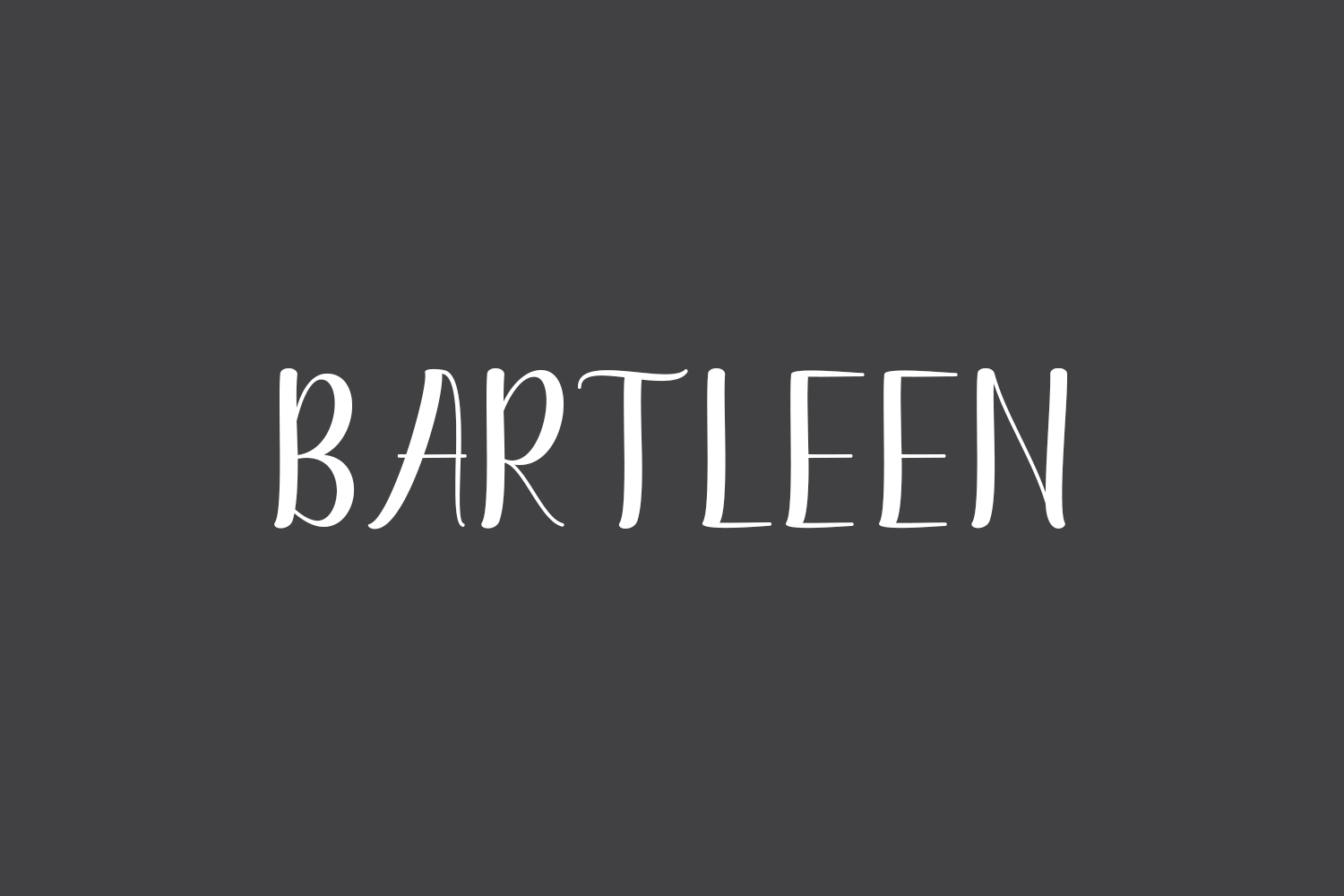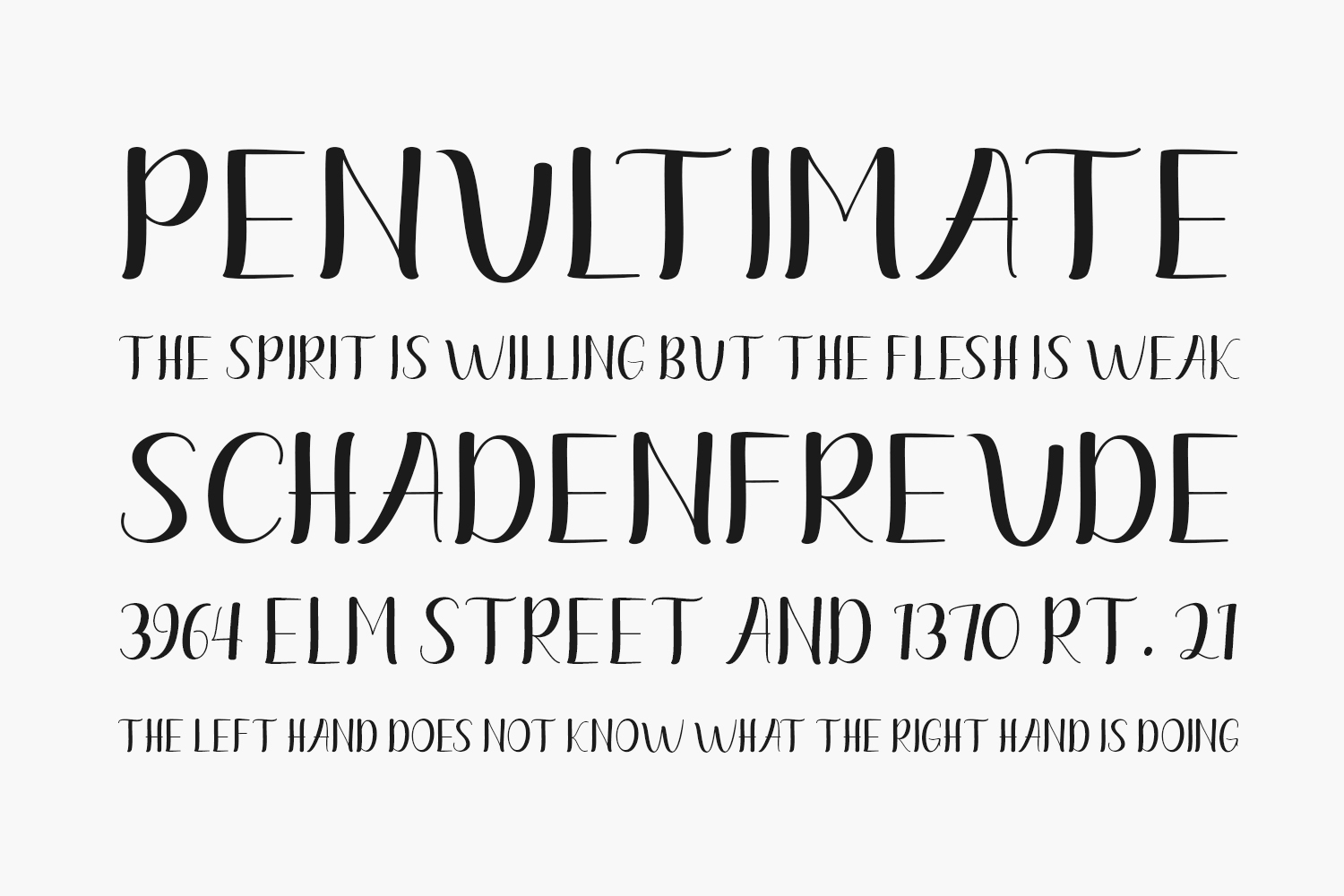
Discover Bartleen Free Font Family, a stunning and versatile handwritten font that comes in two unique styles. Watch as the characters gracefully dance along the baseline, adding an enchanting touch to your designs. Let your creativity flow with this beautiful typeface that will captivate hearts and elevate your projects. Bartleen Free Font Family is free for personal use only. Please purchase the full version for commercial use.
Designed by Cut Story